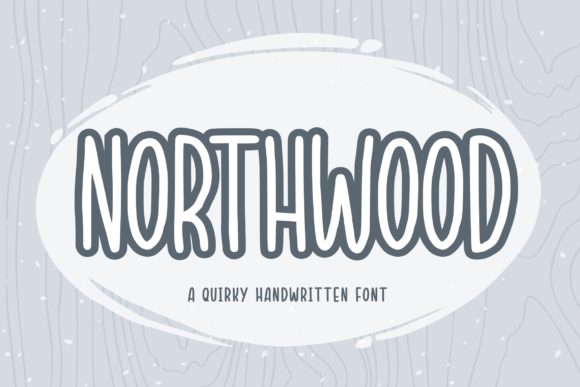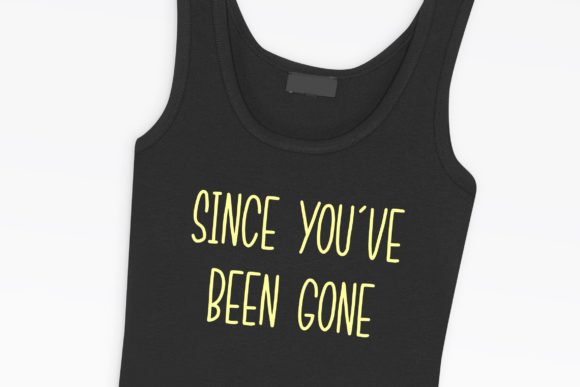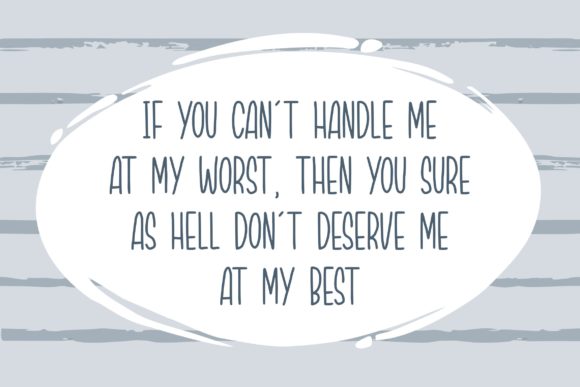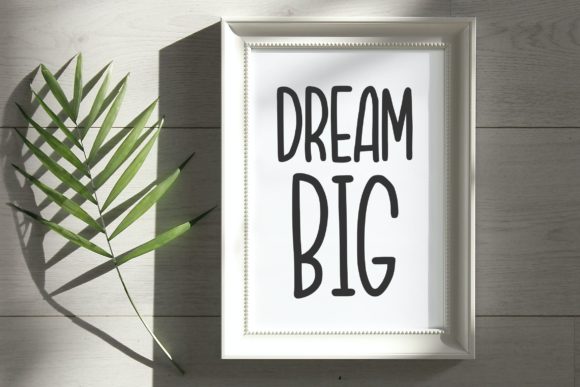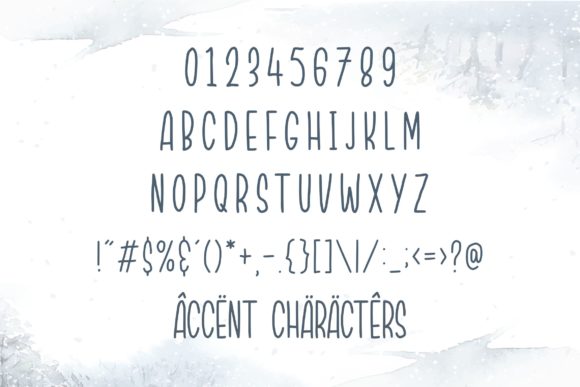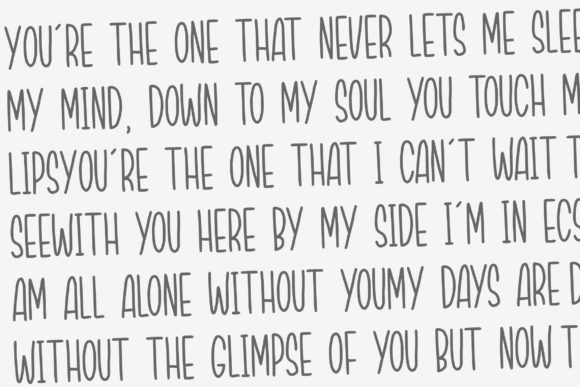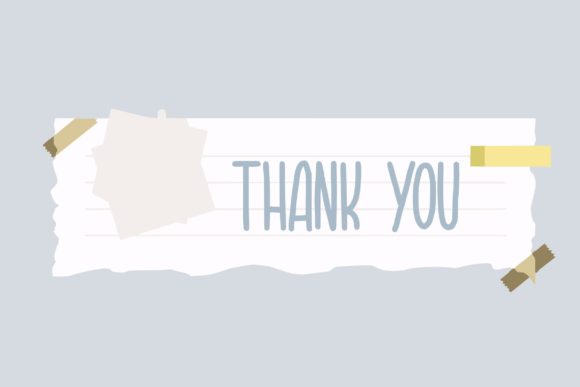
Northwood Font
About Northwood Font
Northwood is a simple, neat lettered and quirky handwritten font. Its natural and unique style makes it incredibly fitting to a large pool of designs. The only limit is your imagination!